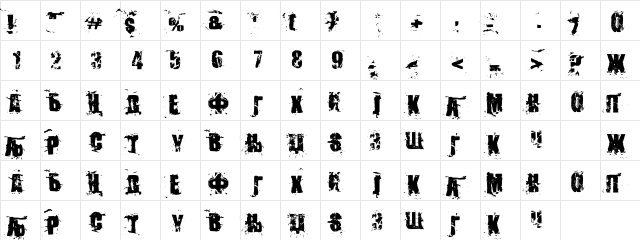
X_KillerAnts UltraBold Free Font
X_KillerAnts UltraBold
Style: UltraBold
Copyright: Made by Pavle Mirolajski, Stip, Republic of Macedonia
Design Context for X_KillerAnts
X_KillerAnts is a composed and adaptable typeface that performs quietly and consistently across a wide range of design contexts. Its bold stroke weight gives it real presence on the page.